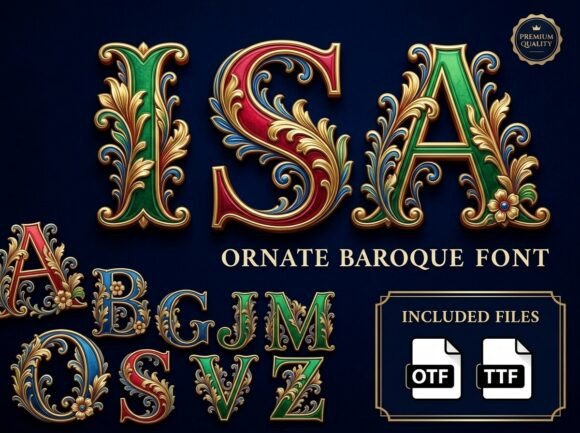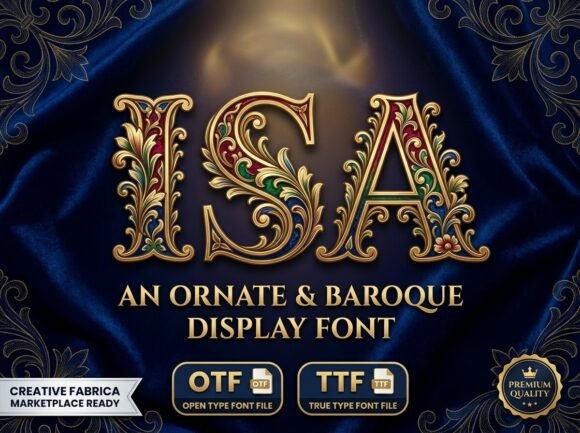
Introduction to Isa Font
Evoke the splendor of a classical library with Isa, a premium ornate typeface that defines sophistication.
Isa features regal serif characters entwined with lush, multi-colored acanthus leaves and delicate floral accents Its aesthetic sits at the intersection of Renaissance art and modern luxury, making it an indispensable asset for boutique branding, vintage book covers, and exquisite wedding suites.